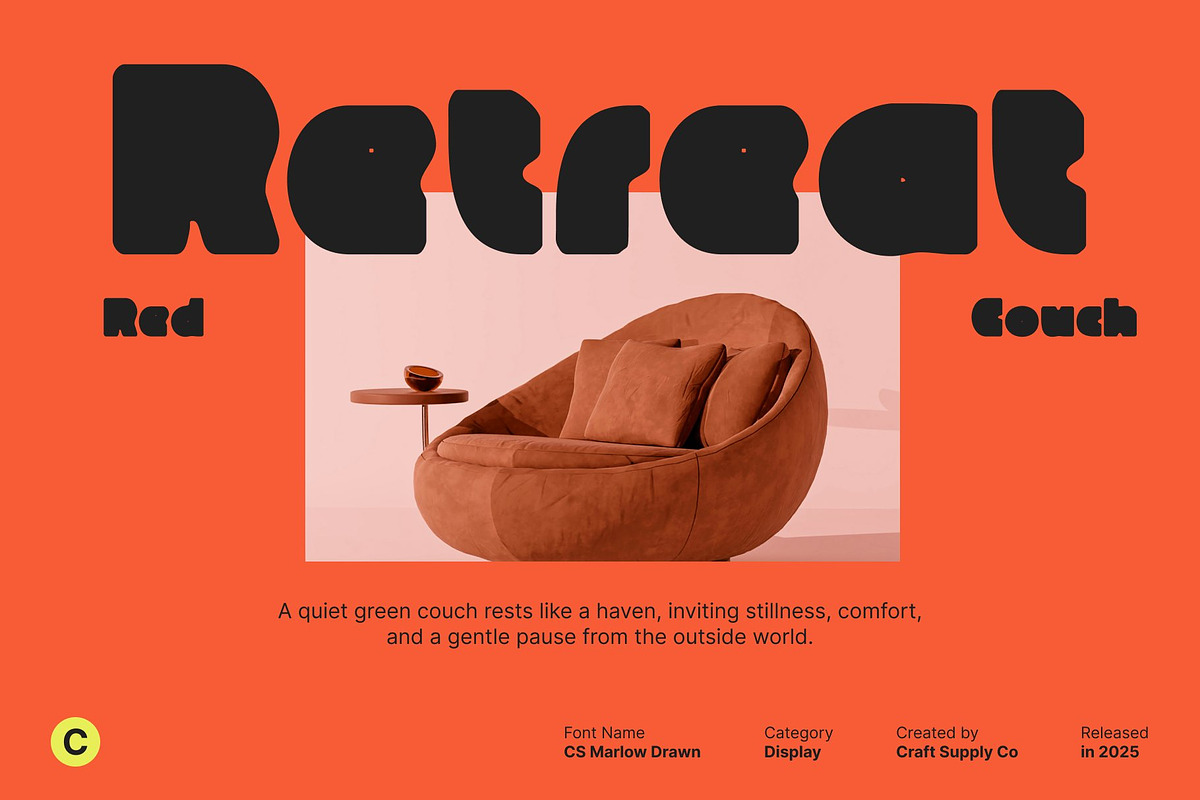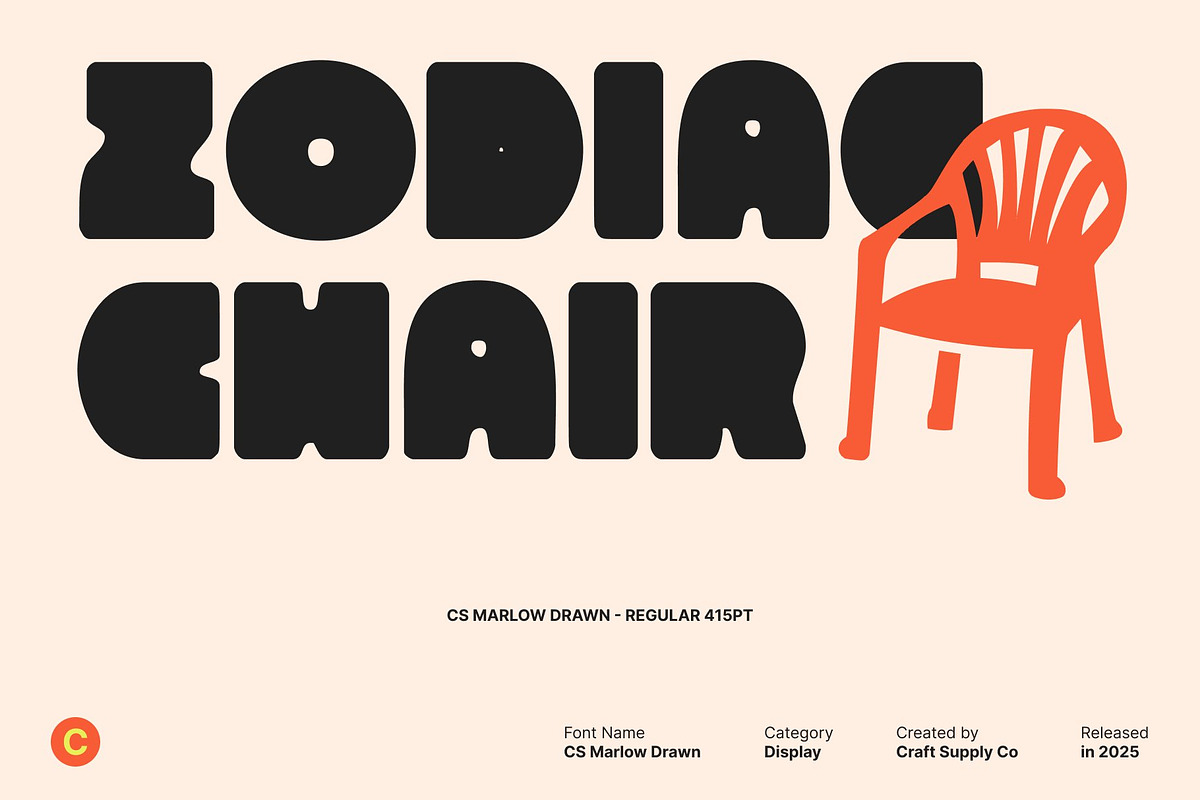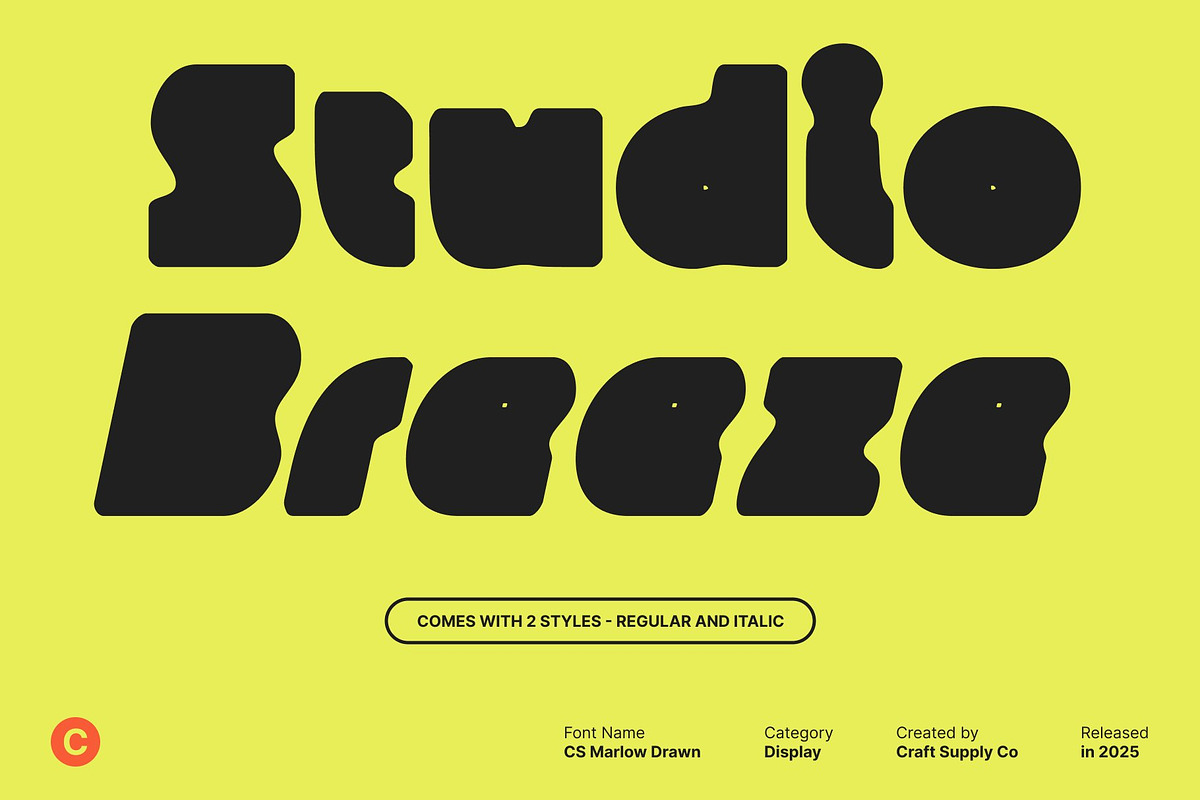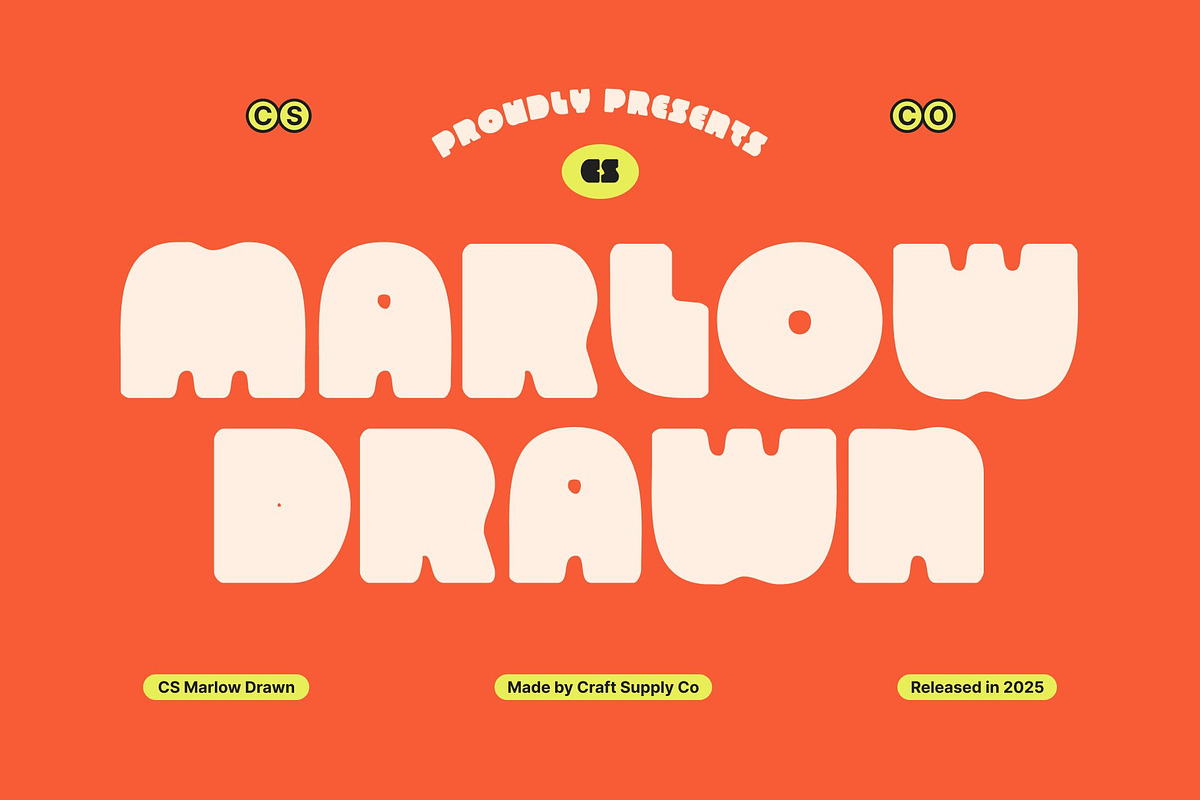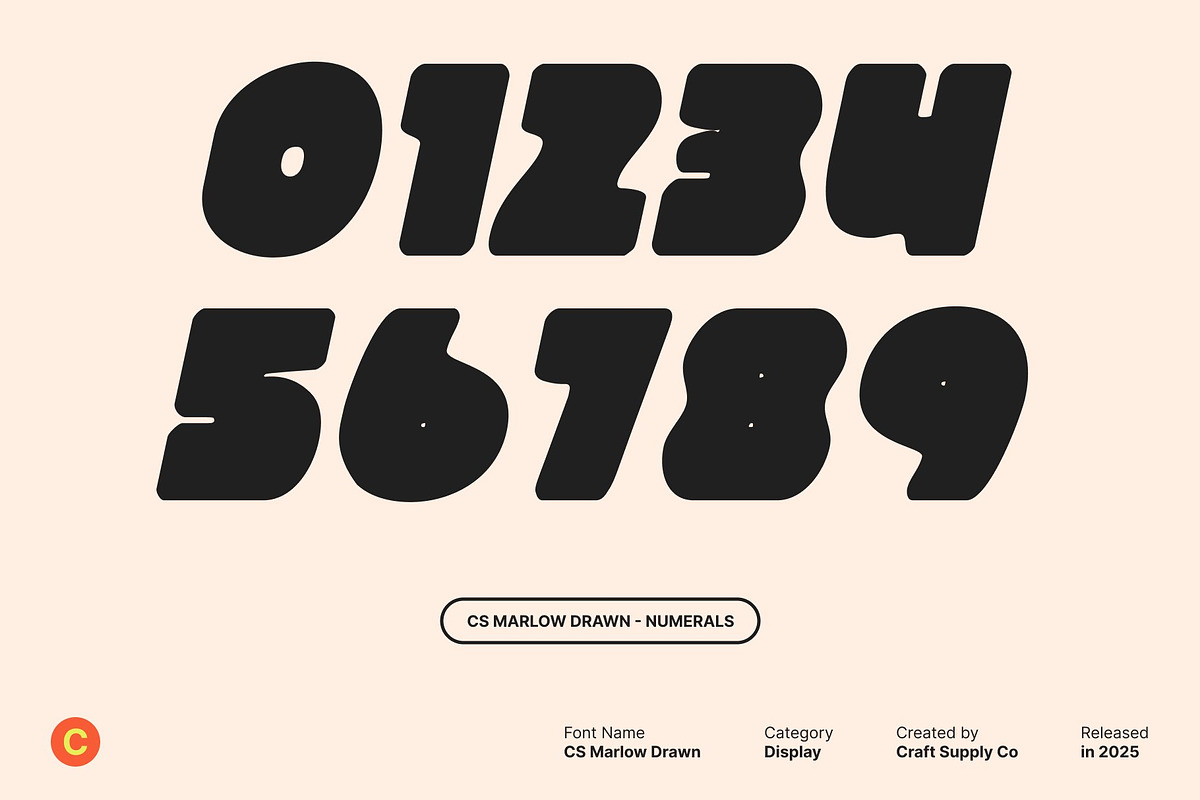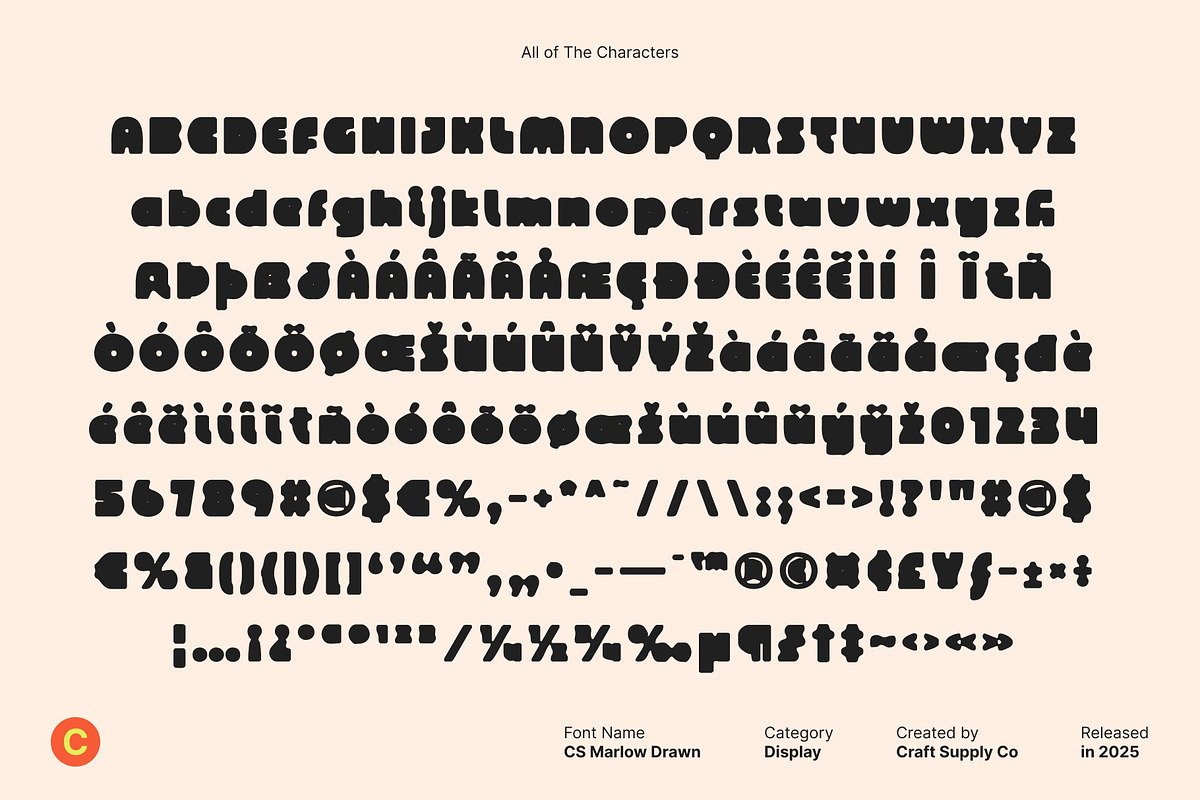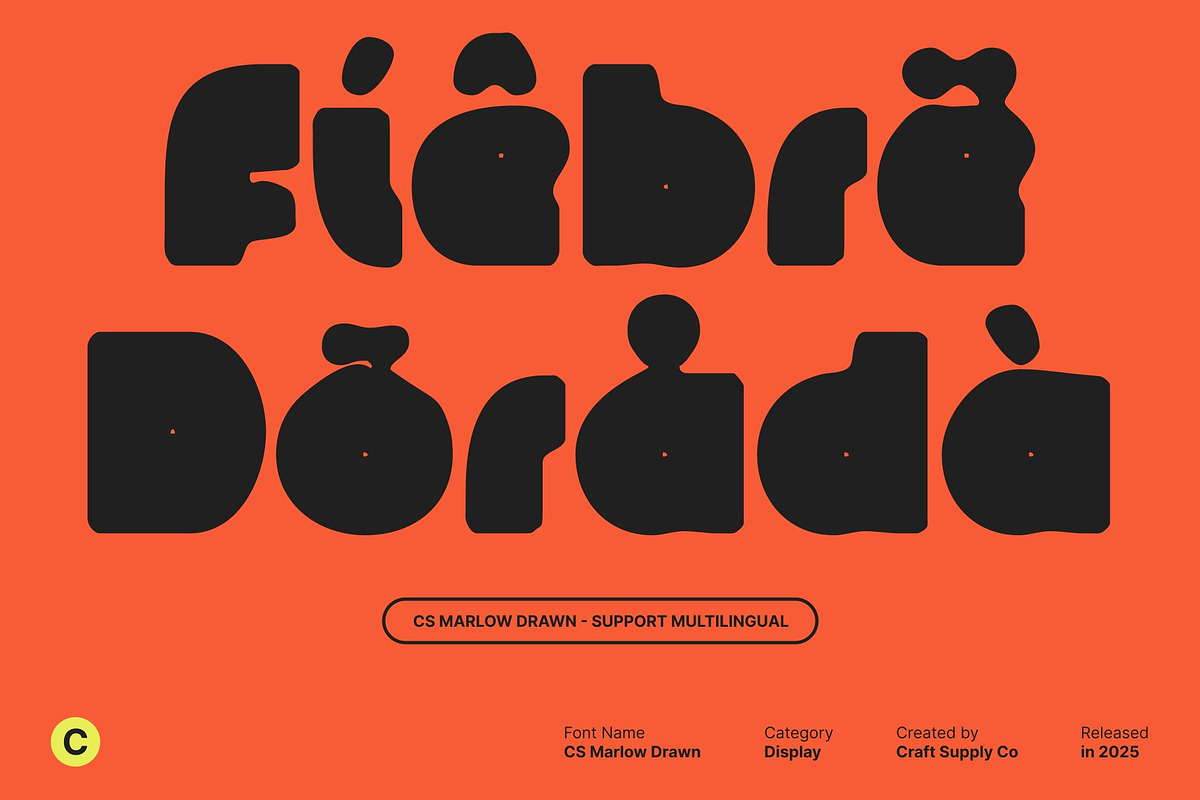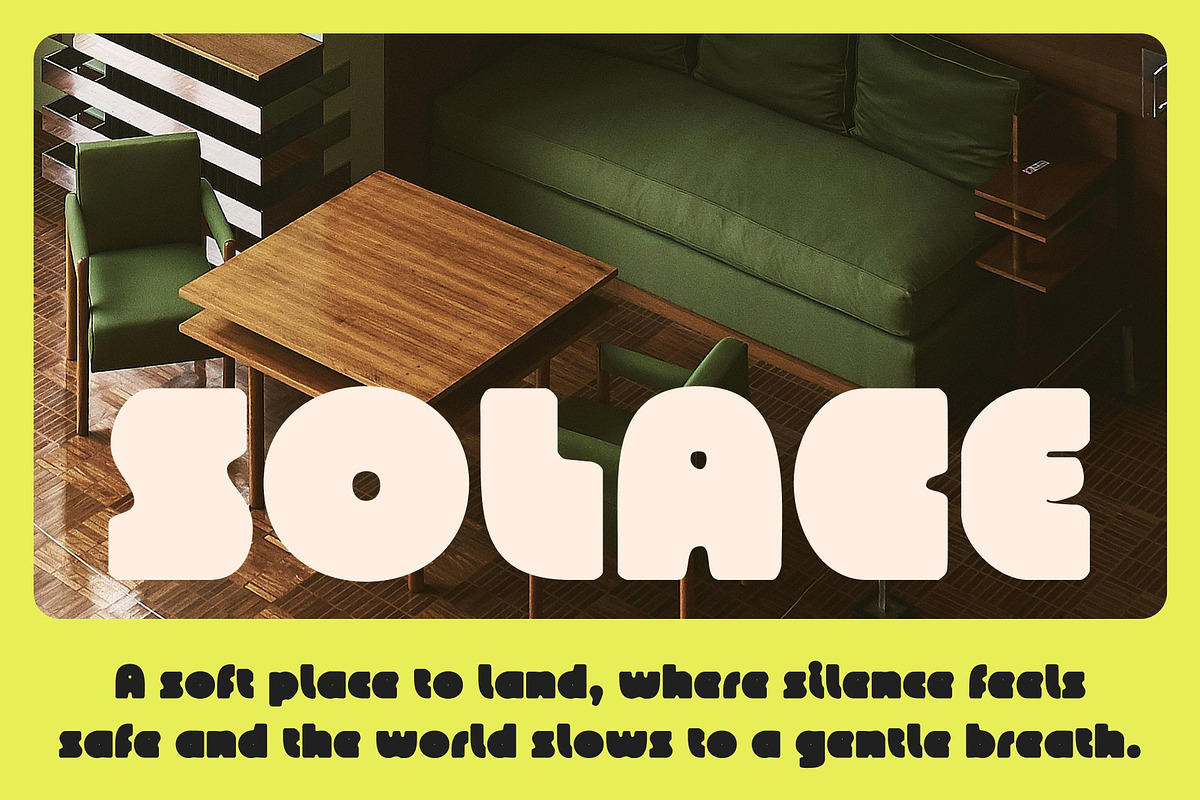
CS Marlow Drawn
CS Marlow Drawn – Bold Font: Retro Funk Meets Modern Impact
Striking Boldness with a Funky Twist This is a bold display sans serif font that fuses classic typographic strength with the vibrant spirit of retro funk. Its solid, confident letterforms are enhanced by a hand-drawn texture, adding expressive imperfections that give the font a lively, artistic personality. The result is bold typography that feels energetic, warm, and full of character.
Clean Structure with Handmade Charm Built on clean, well-balanced shapes, this font maintains excellent clarity and visual impact. The drawn effect introduces subtle irregularities, softening the geometry and creating a more organic, human feel. This combination ensures the font remains powerful and readable while standing out with a unique, handcrafted edge.
Perfect for Playful Yet Professional Designs Ideal for music posters, creative branding, logos, merchandise, and product packaging, this font balances fun and professionalism with ease. Its retro influence brings charm and nostalgia, while its modern construction keeps designs feeling fresh and relevant.
Versatile for Bold Visual Statements From event branding and editorial headlines to advertising and social media graphics, this font adapts effortlessly across formats. Its bold weight commands attention in large displays, while its clean foundation ensures consistent readability making it a versatile choice for designers seeking retro flair with modern impact.
- CS Marlow Drawn Regular
- CS Marlow Drawn Italic